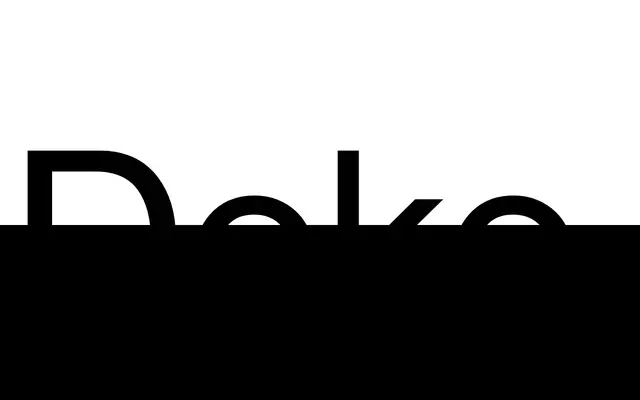
Doko
Setup Type · Ondrej Jób · 2011
A humanist serif by Ondrej Jób with calligraphic roots in cartoons and lettering, designed to function across editorial text and display contexts in four styles.
Originating as a final project at the Type and Media masters programme at KABK The Hague, Doko balances expressive display qualities with the legibility demands of text setting. Its low contrast, natural width and medium x-height give it warmth without sacrificing functionality, while features including four figure sets, discretionary ligatures and three stylistic sets allow for detailed typographic control. Coverage extends to over 100 languages across Basic Latin and Extended Latin in 479 glyphs.
The foundry explicitly describes Doko as a humanist serif with low contrast and calligraphic influences drawn from cartoons, illustration and lettering, placing it firmly in the humanist serif subcategory.